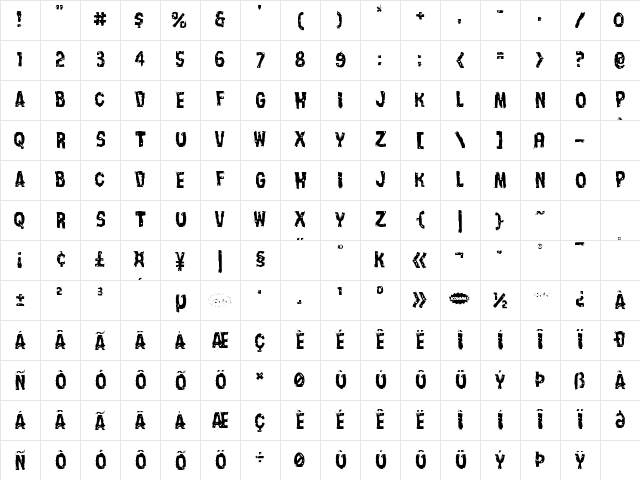
Complete Nightmare Alley Light Light glyph index. Displaying only characters natively supported by Nightmare Alley Light Light font.
Nightmare Alley Light is a composed and adaptable typeface that performs quietly and consistently across a wide range of design contexts. Its slender proportions lend an understated elegance to any composition.